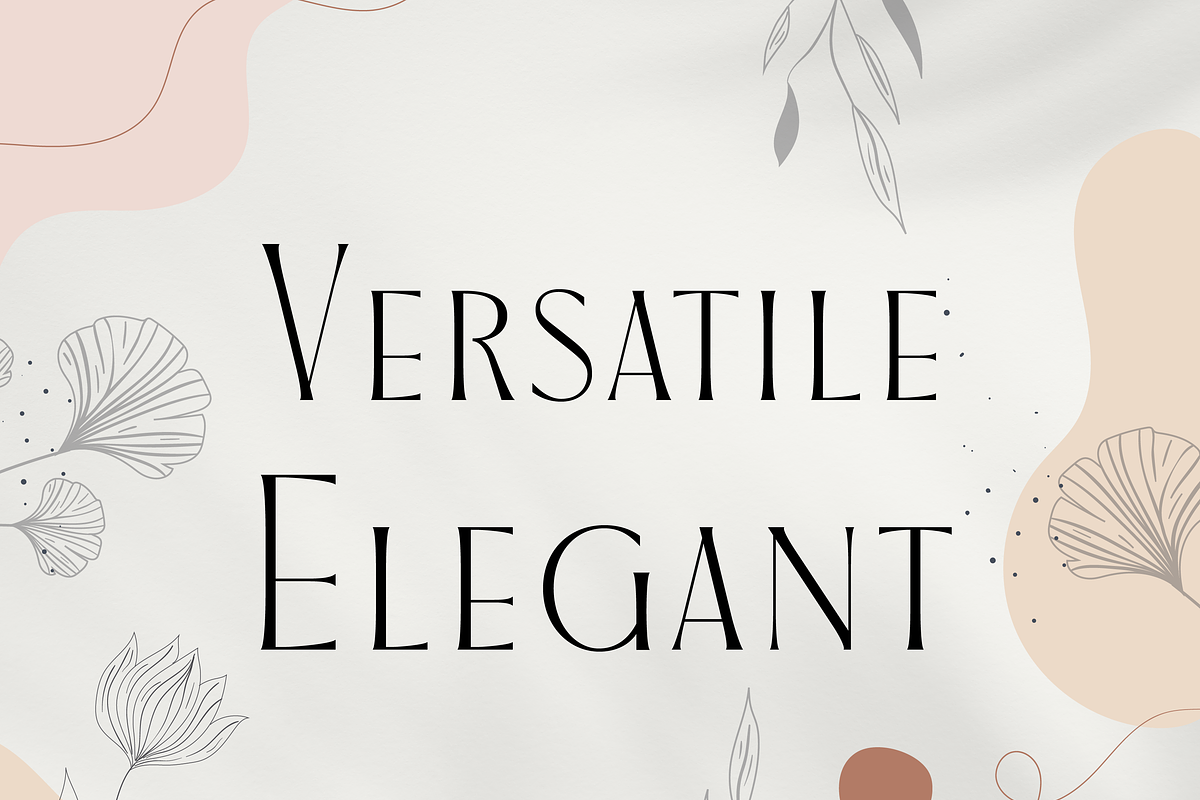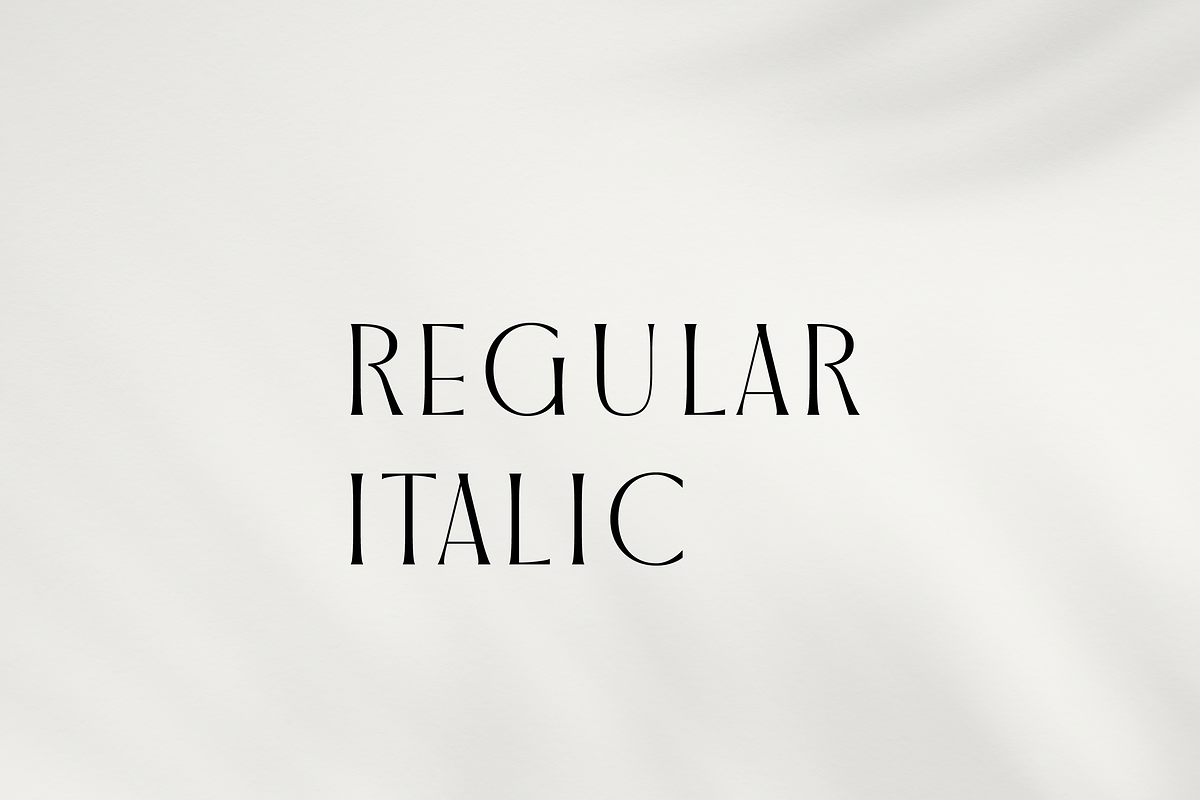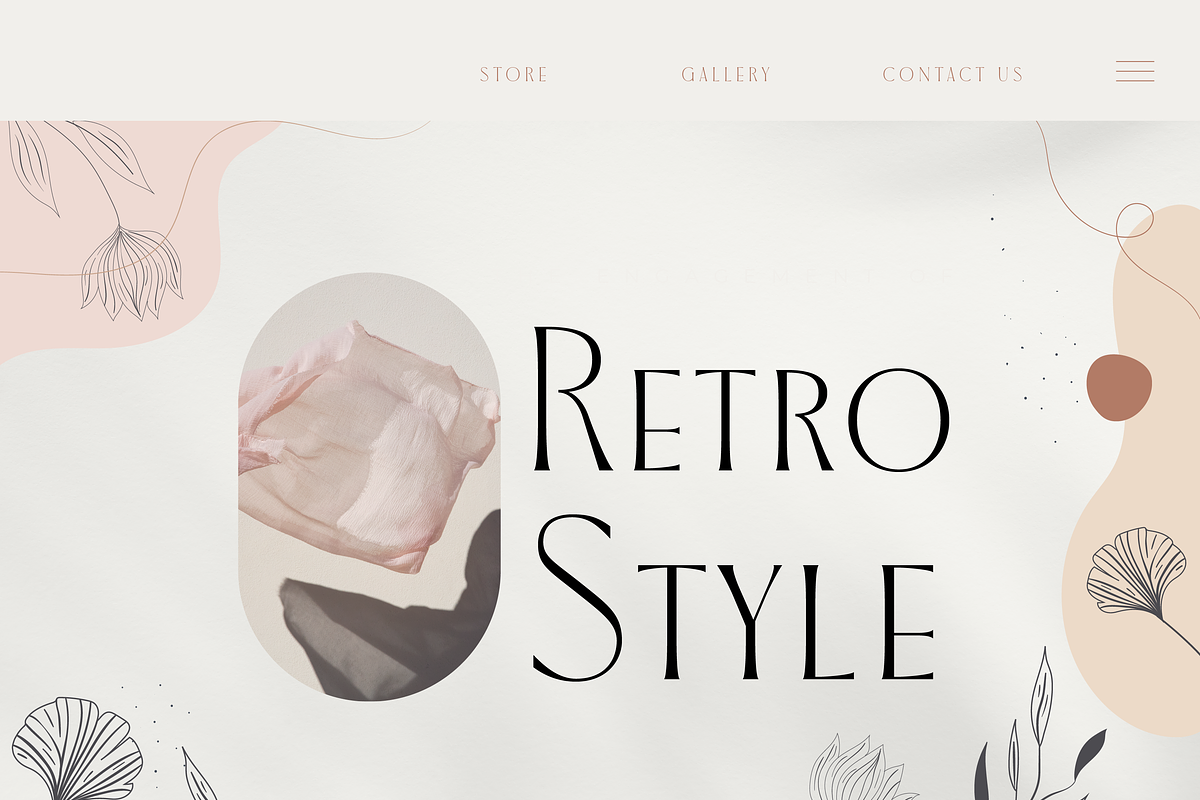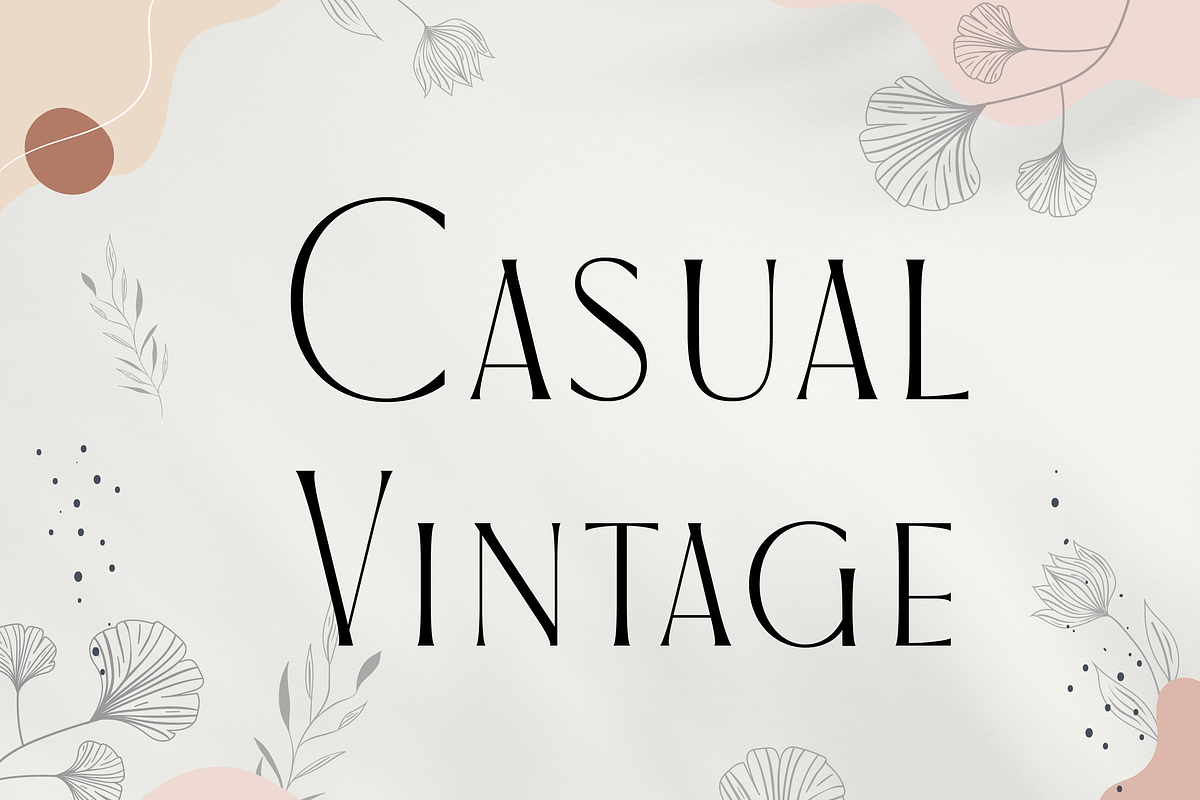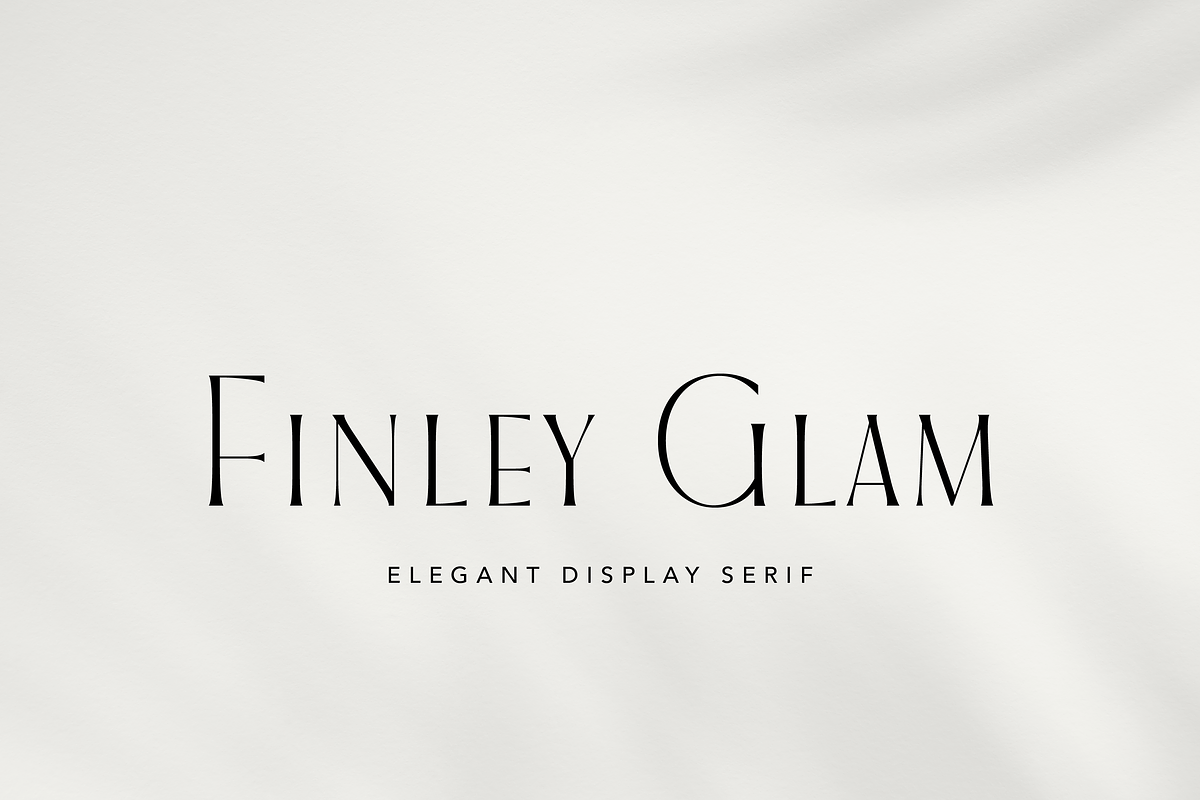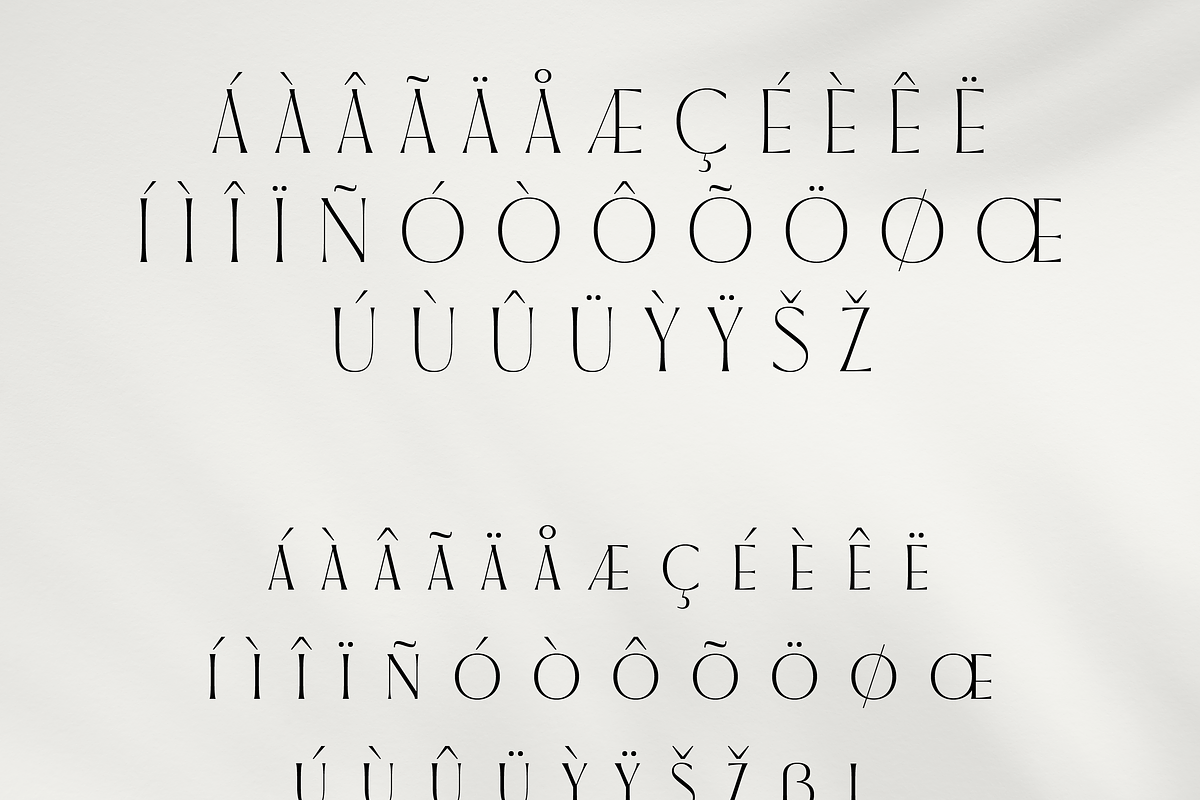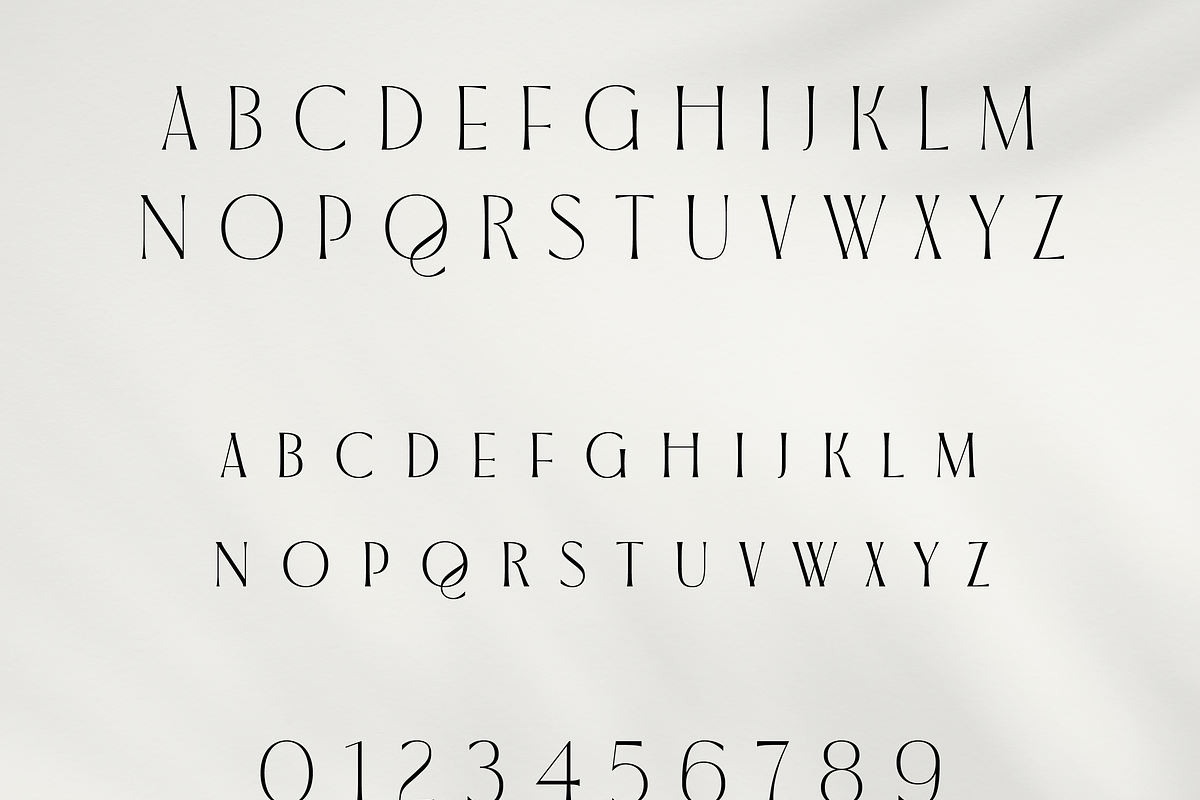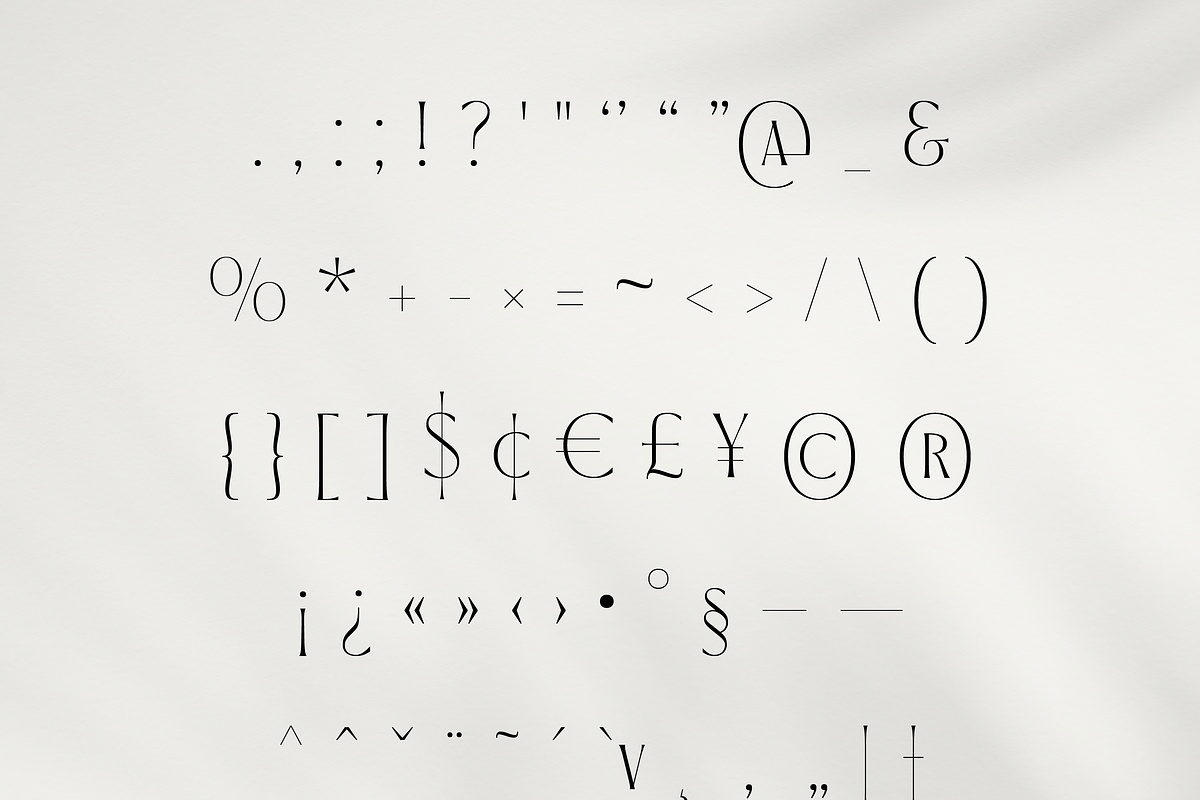
Finley Glam Serif
Finley Glam – An Elegant Display Serif
Finley Glam is a tall, slender display serif that captures the refined spirit of Art Deco with a contemporary twist. Its elongated letterforms and gently tapered serifs create a striking visual rhythm, perfect for designs that demand sophistication and style.
With its blend of classic glamour and modern refinement, Finley Glam transforms any project into a statement of timeless elegance.